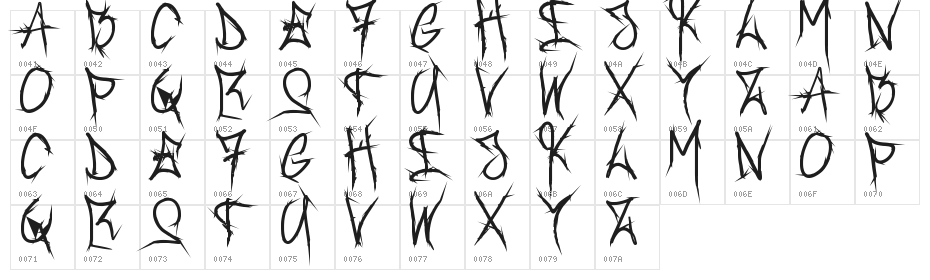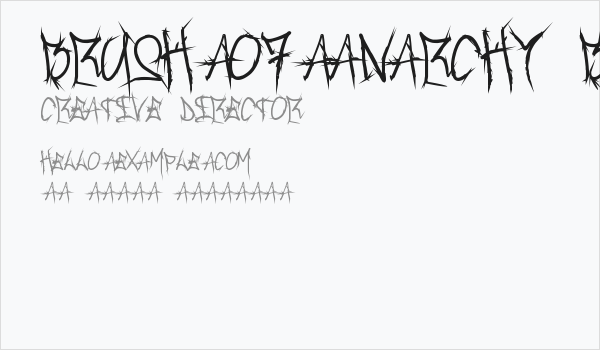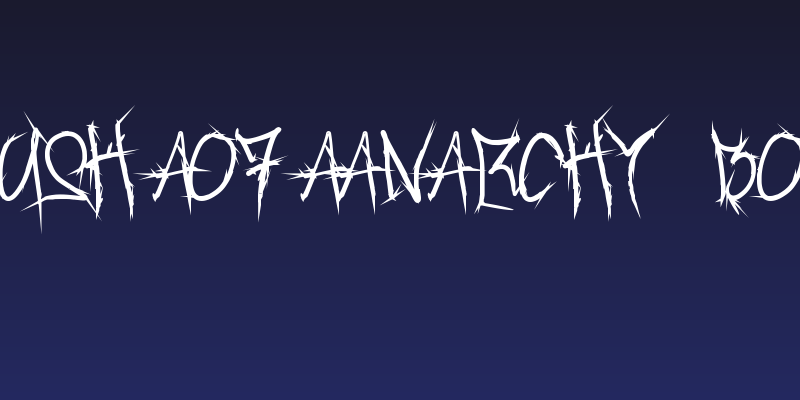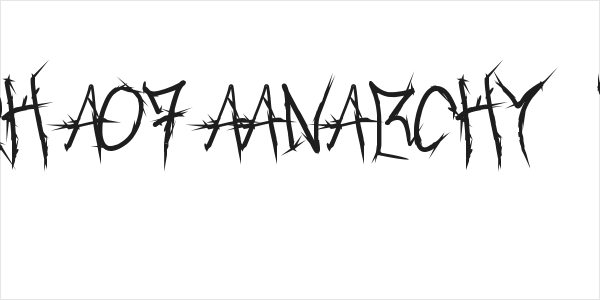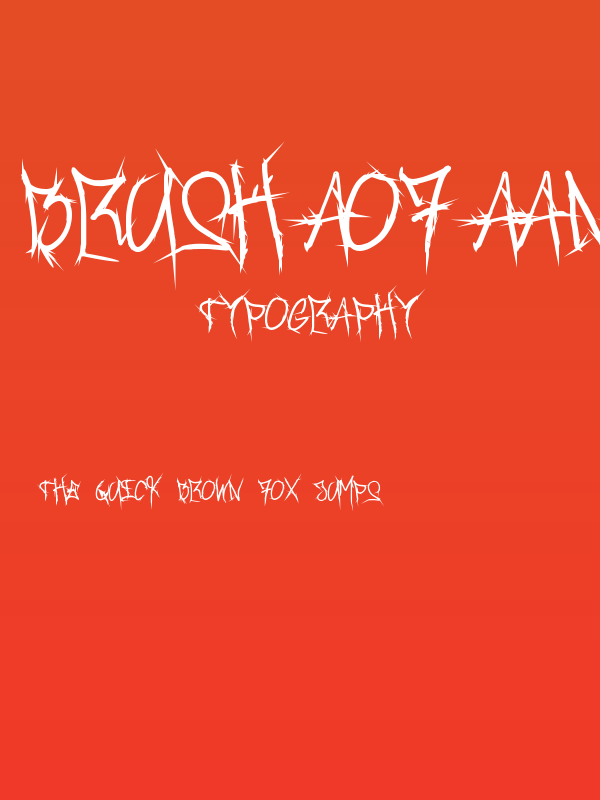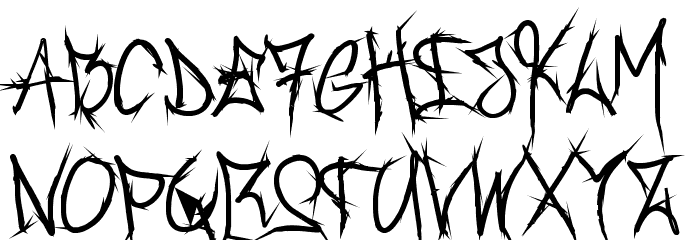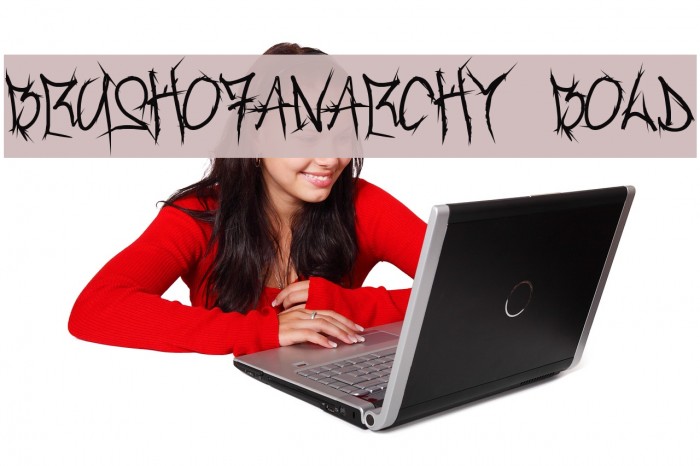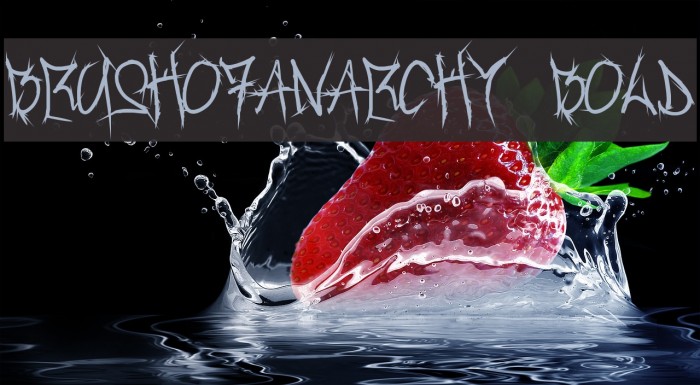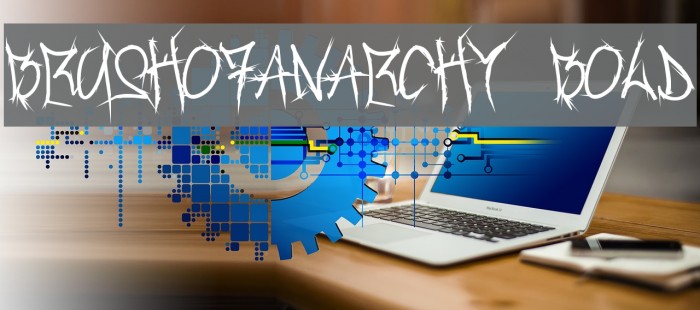
Brush_Of_Anarchy Bold Font
Brush_Of_Anarchy Bold Description
This font exudes a rebellious and edgy vibe with its sharp, jagged strokes and chaotic design. The letters are crafted to resemble thorny branches or barbed wire, giving it a distinctly anarchic and aggressive appearance. Each character is unique, with varying angles and spikes that create a sense of movement and unrest. The font's boldness is evident in its thick lines and dramatic flair, making it stand out in any design. Its unconventional style is perfect for projects that require a strong, impactful visual statement.
| Overall Style | Modern, Edgy |
| Use Case | Logos, Posters, Headlines |
| Proposed Projects | Ideal for music album covers, event posters, graffiti art, and any design needing a bold, rebellious touch. |